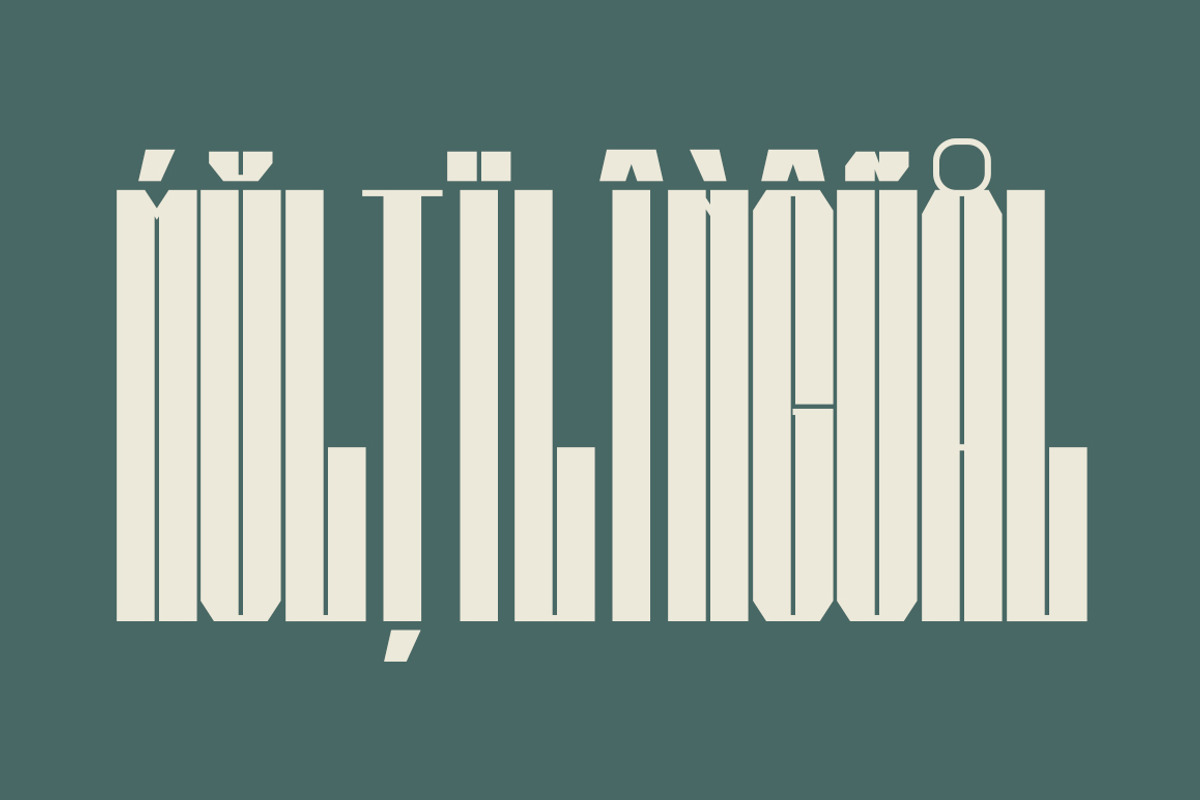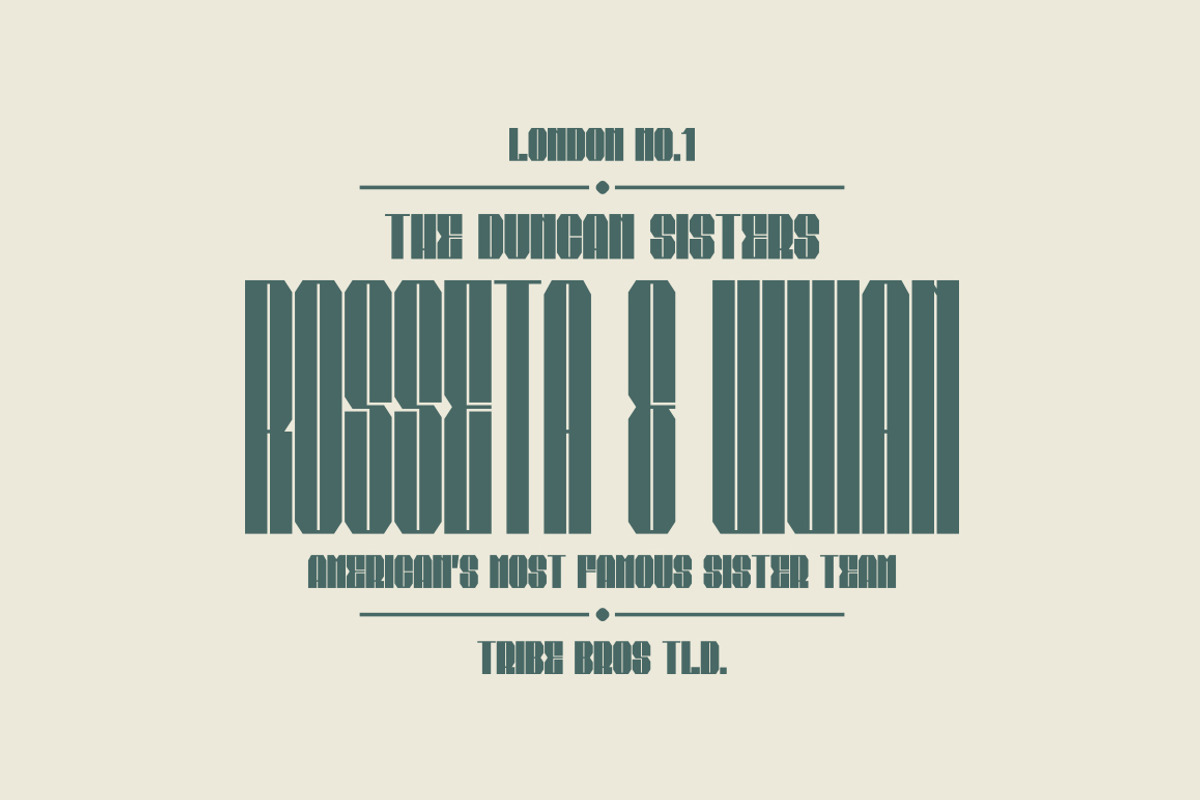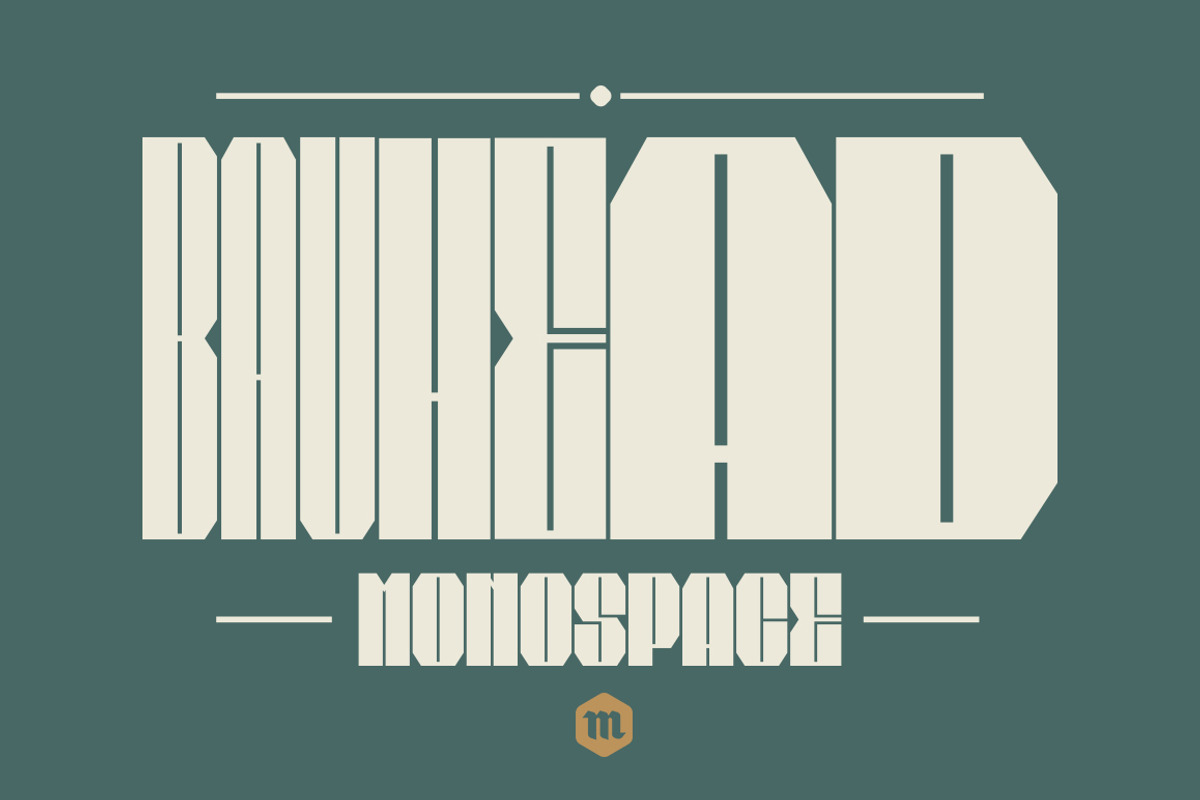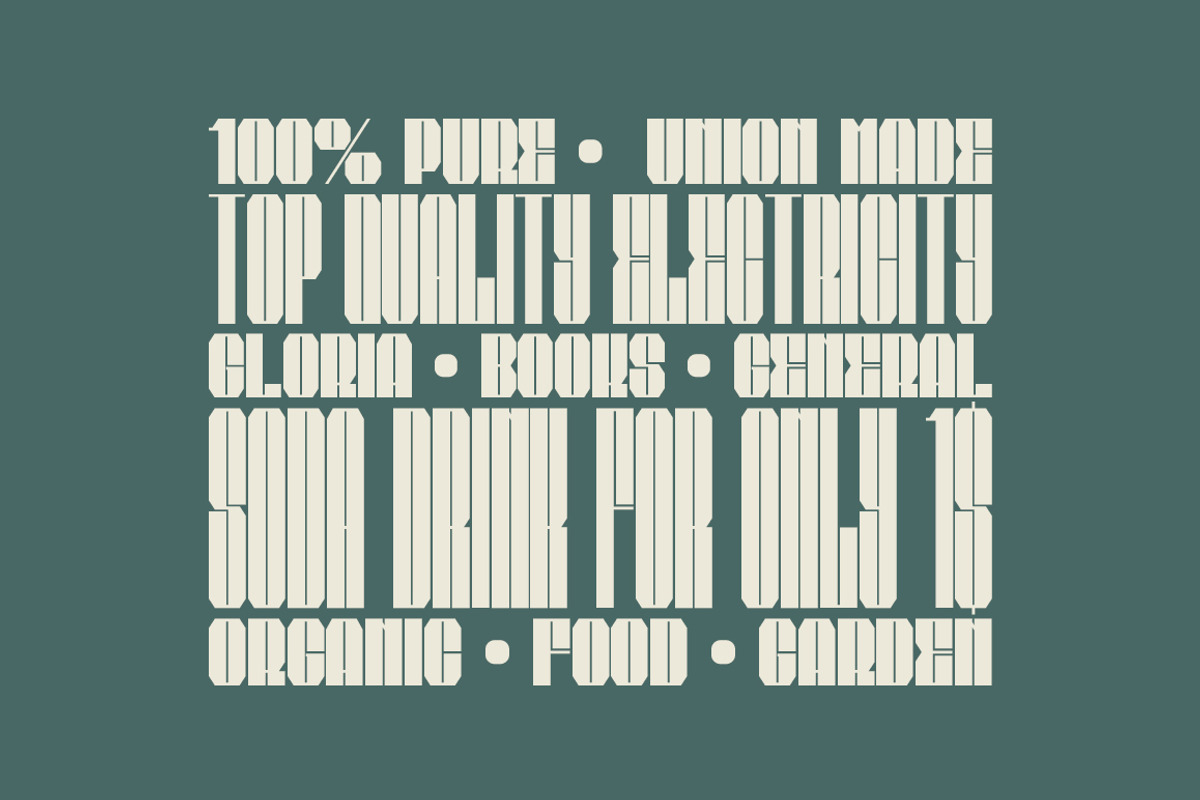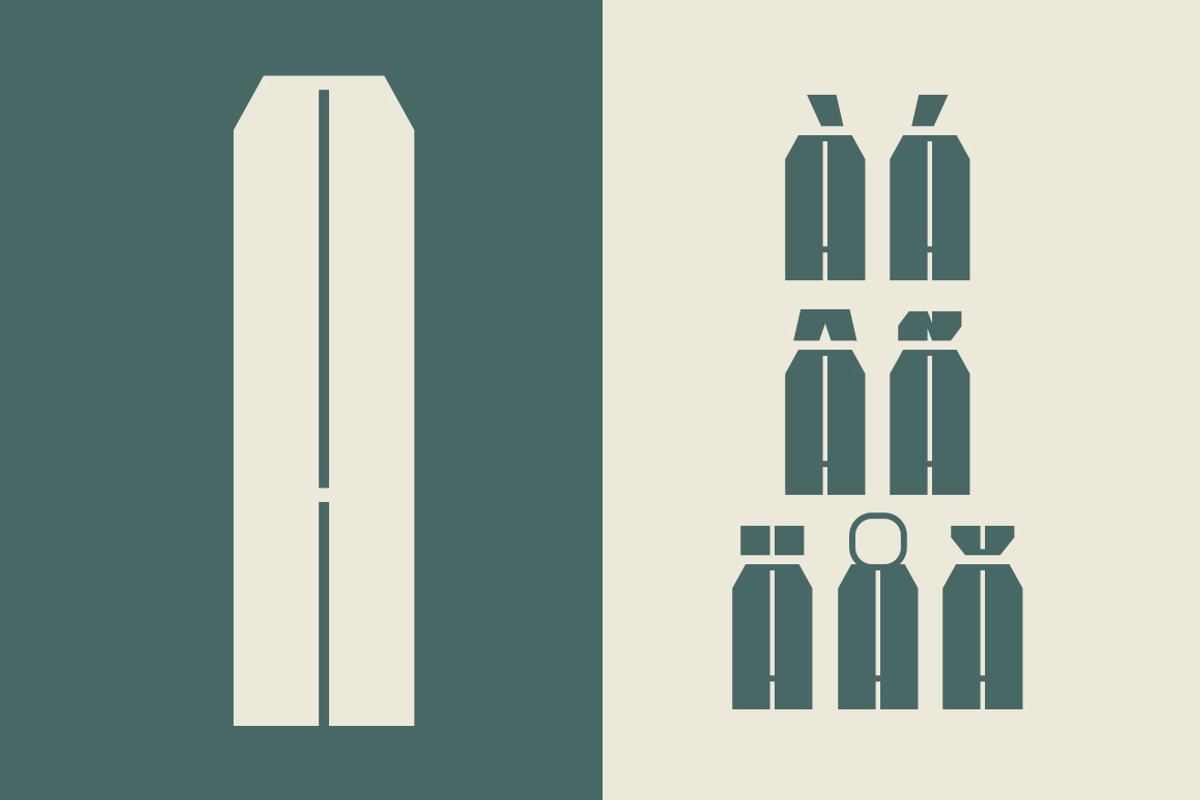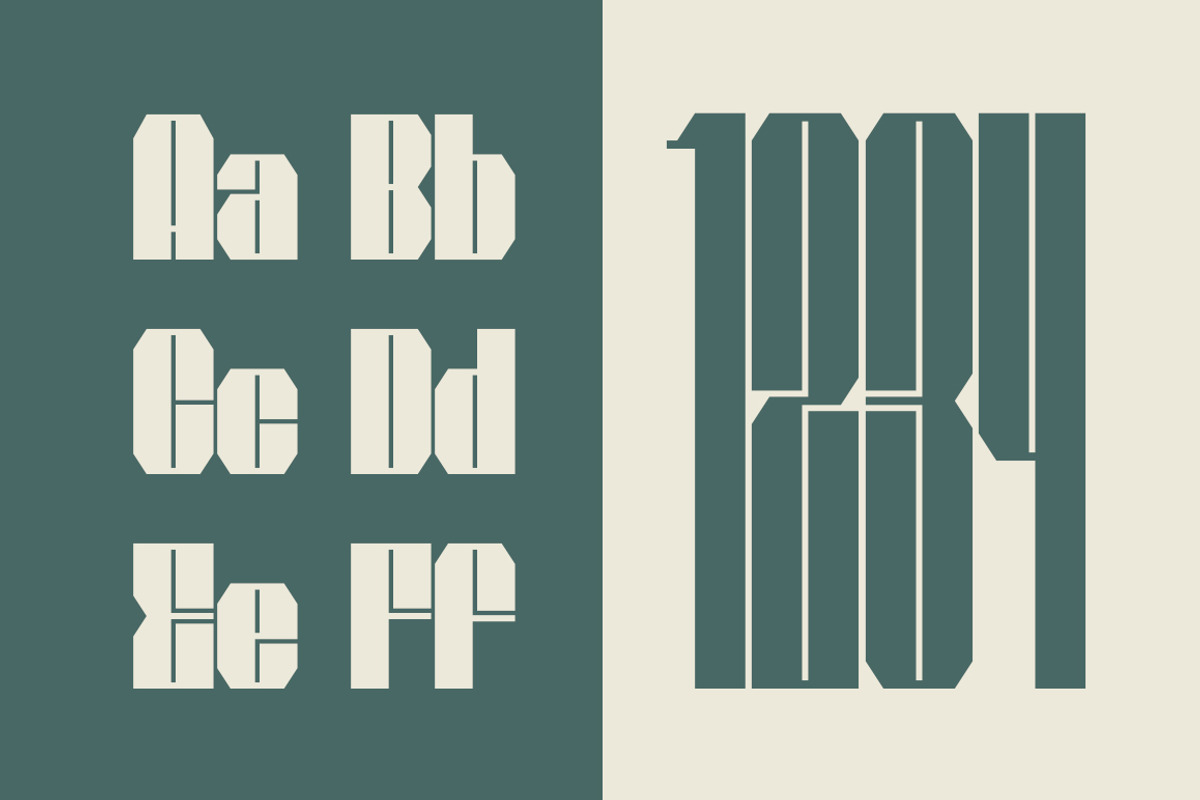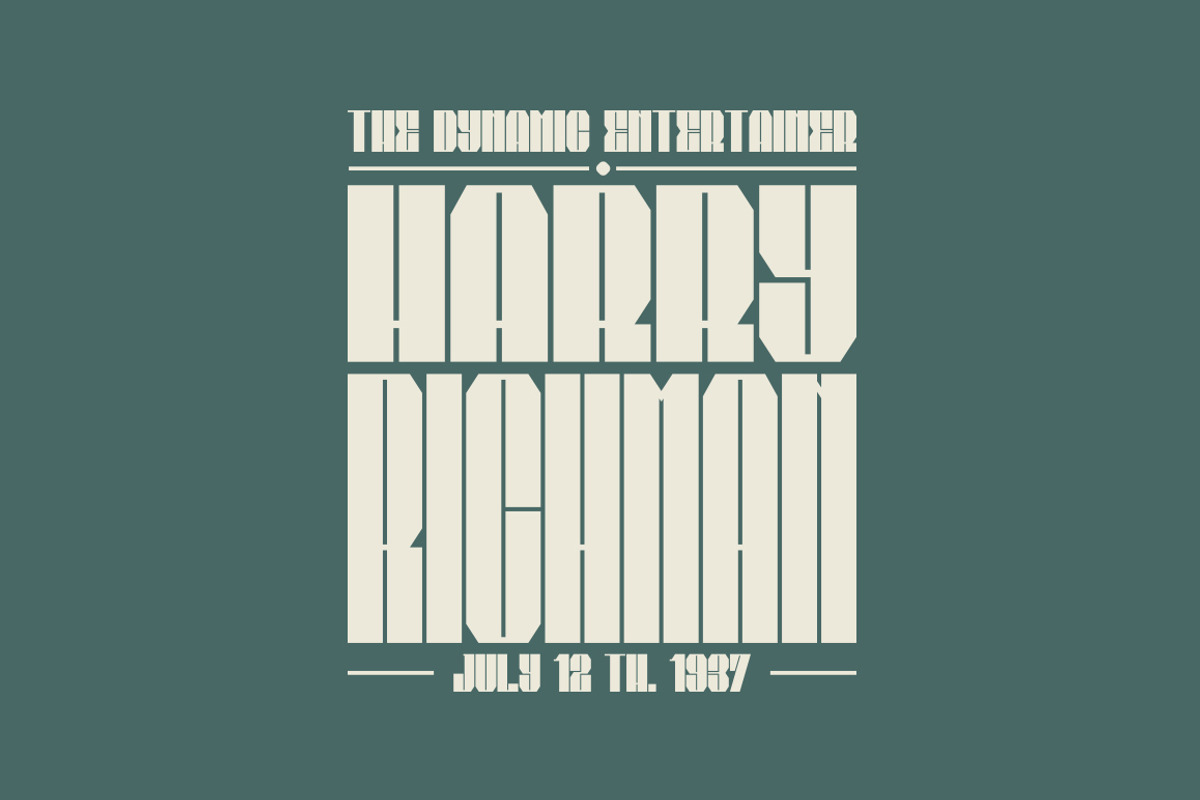
Bauhead Typeface | Font
BAUHEAD is an unique sans serif experimental font, inspired by the Bauhaus movement. Bauhead has three heights, all of them hyperbold with an exaggerated polarization of letters into thick bodies and thin counters. This peculiar font is an abstract approach to the design of letters with astonishing heights and angular, extra condensed characters.Each height has 252 glyphs, an uppercase and lowercase alphabet and extensive Latin script support. This font is well suited for striking titles, headers or unconventional modern designs. Give it a try and let your creativity break free!
Extensive Latin script language support
Upper and lowercase font